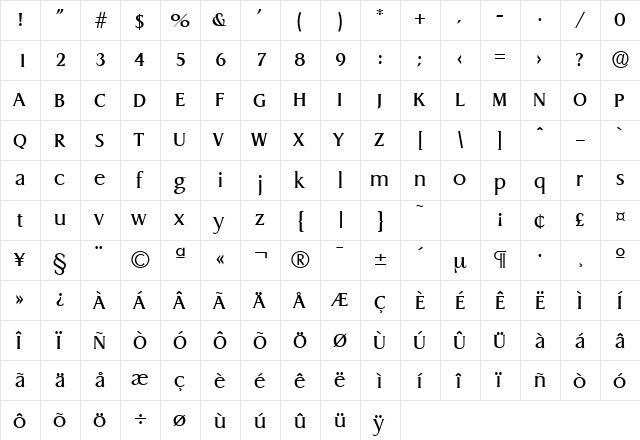
Dragon-Serial Regular
Design Context for Dragon-Serial Typeface
Dragon-Serial takes a measured approach to typography — its balanced proportions and neutral character make it a reliable workhorse for both digital and print work.